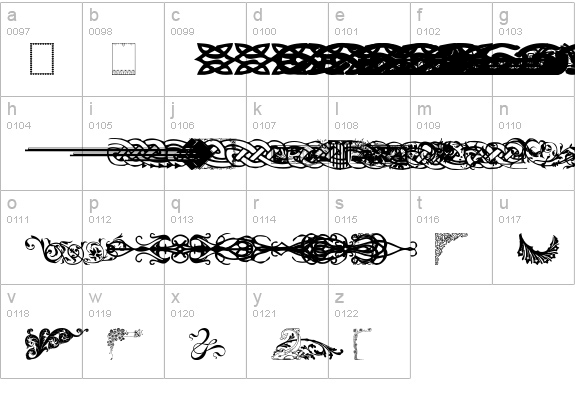
Designer Mix II font is a modern and stylish typeface that exudes creativity and versatility. With its unique blend of elegant curves and sharp edges, this font is perfect for a wide range of design projects, from branding to editorial design. The Designer Mix II font offers a harmonious balance between sophistication and playfulness, making it a great choice for both professional and personal use. Best of all, Designer Mix II font is completely free to download at FontsMarket.com. This means you can easily access this eye-catching font and elevate your designs without any cost. Don't miss out on the opportunity to enhance your creative projects with the Designer Mix II font - download it today and let your imagination soar!